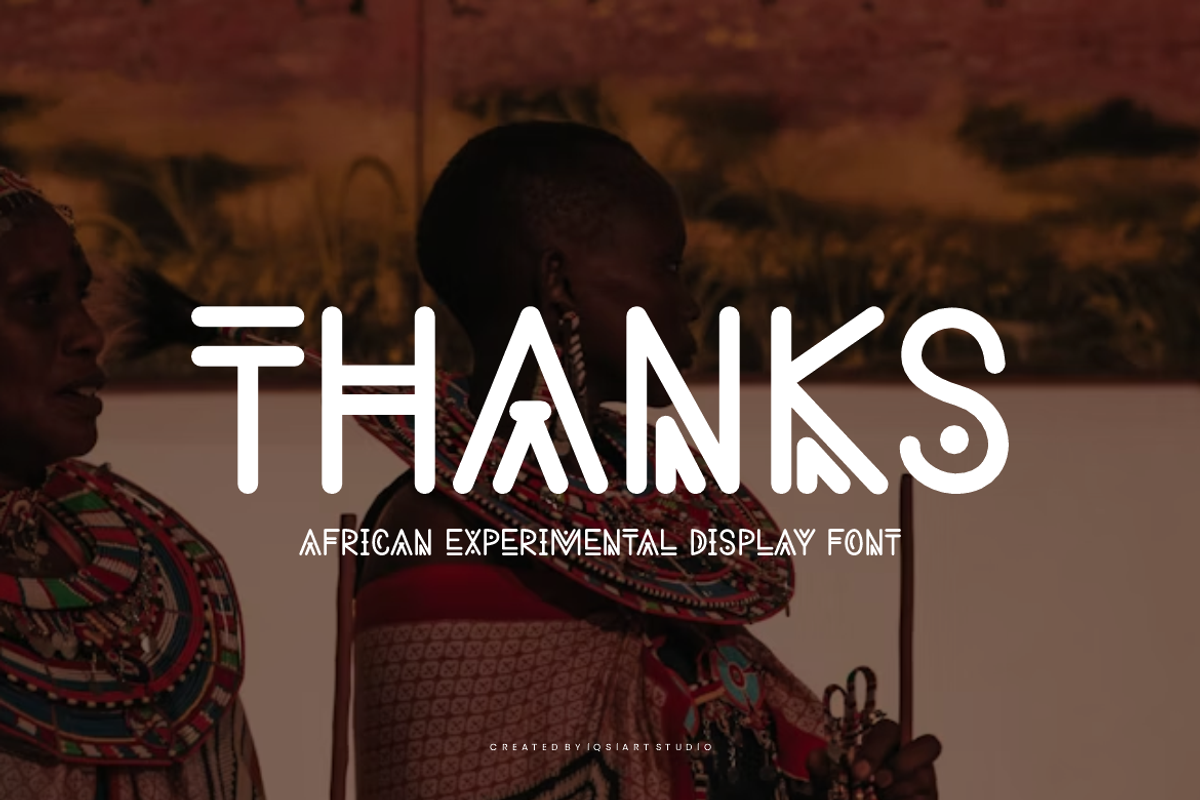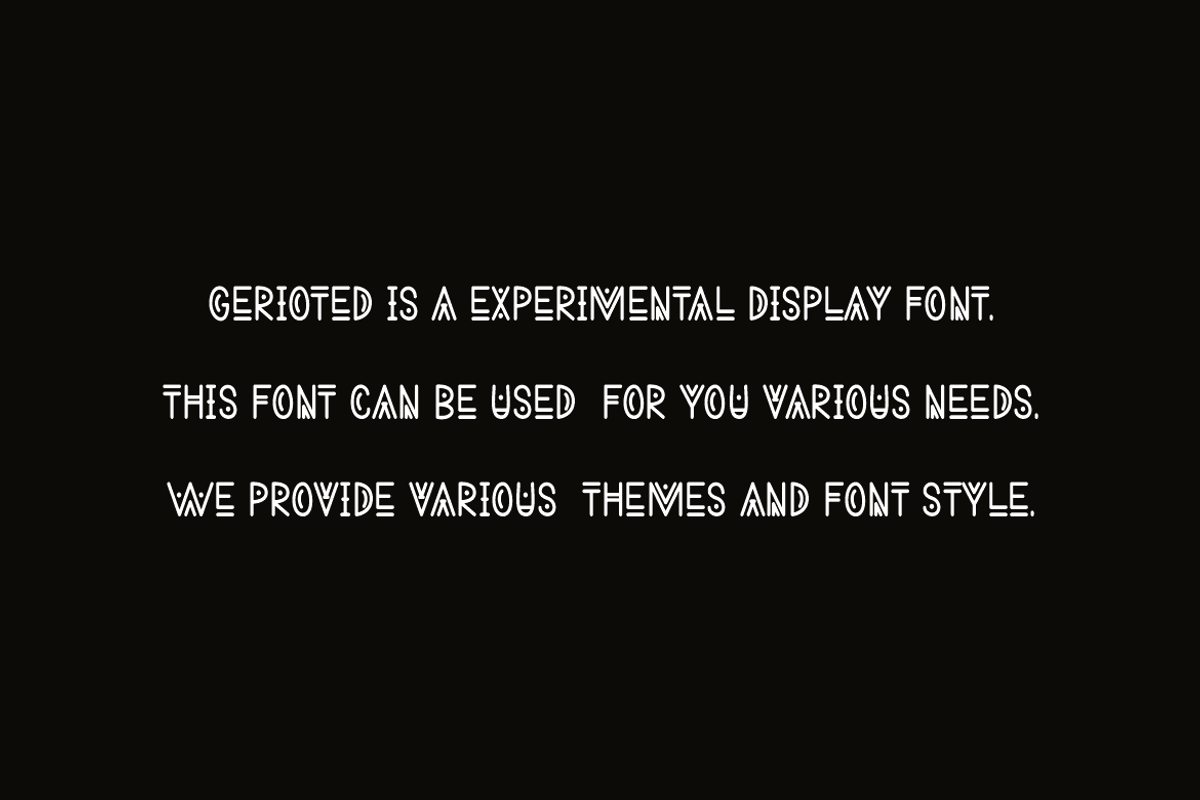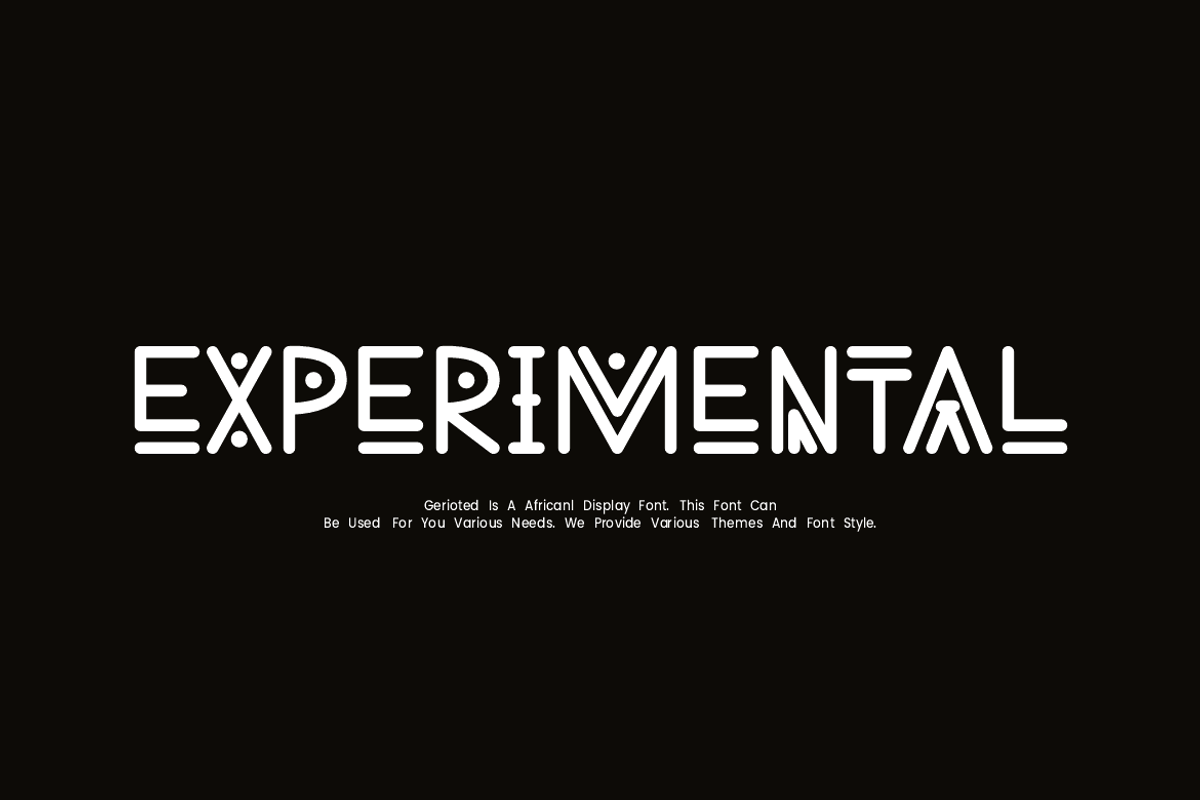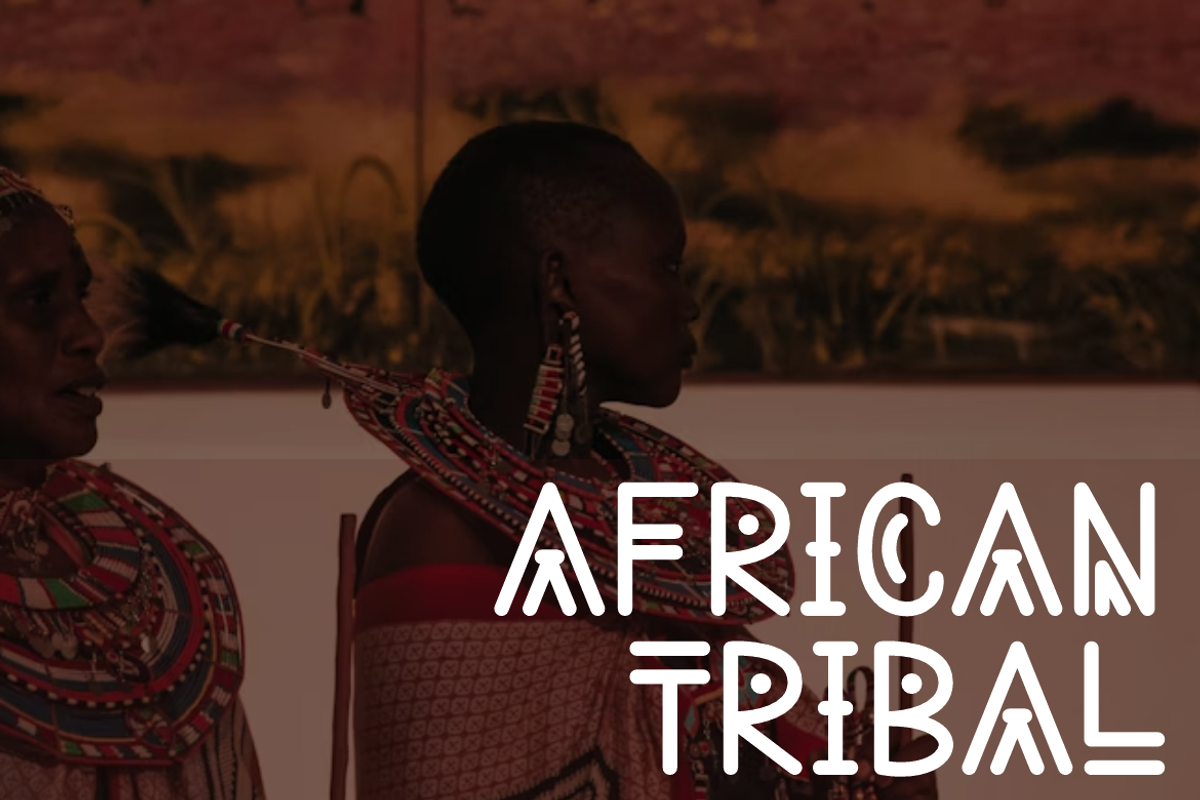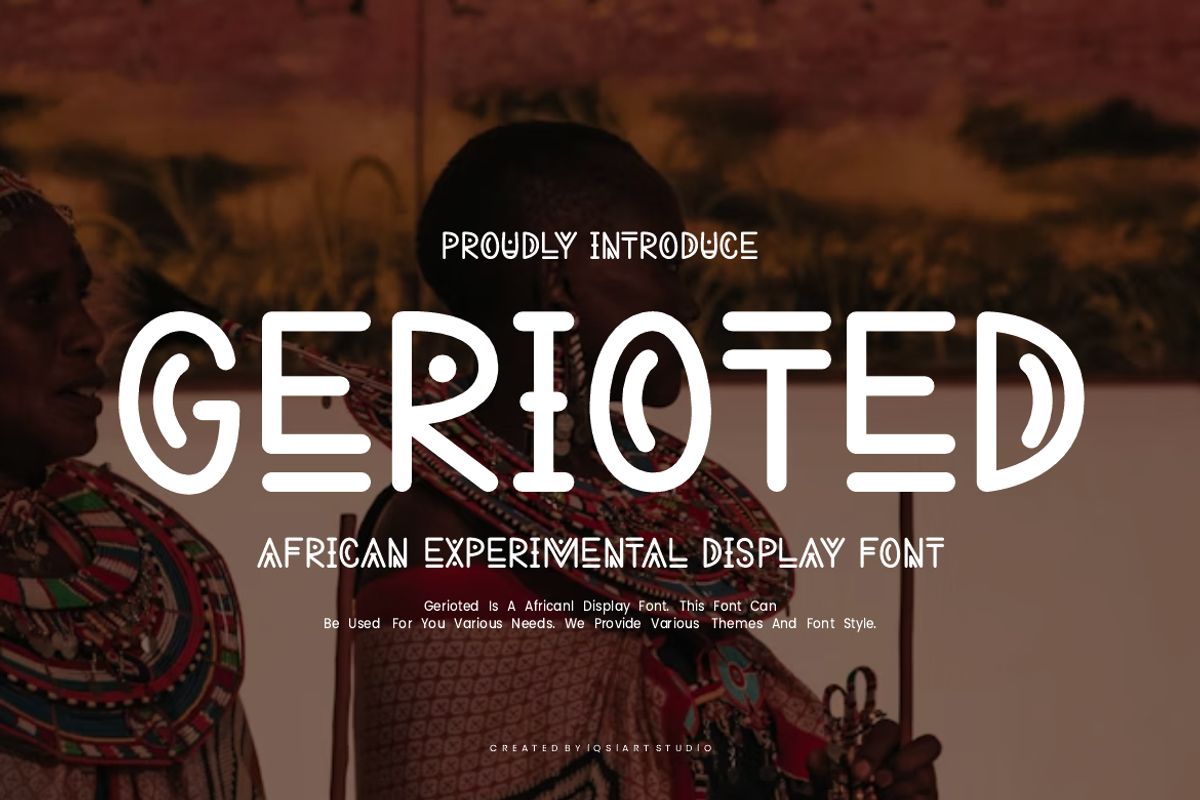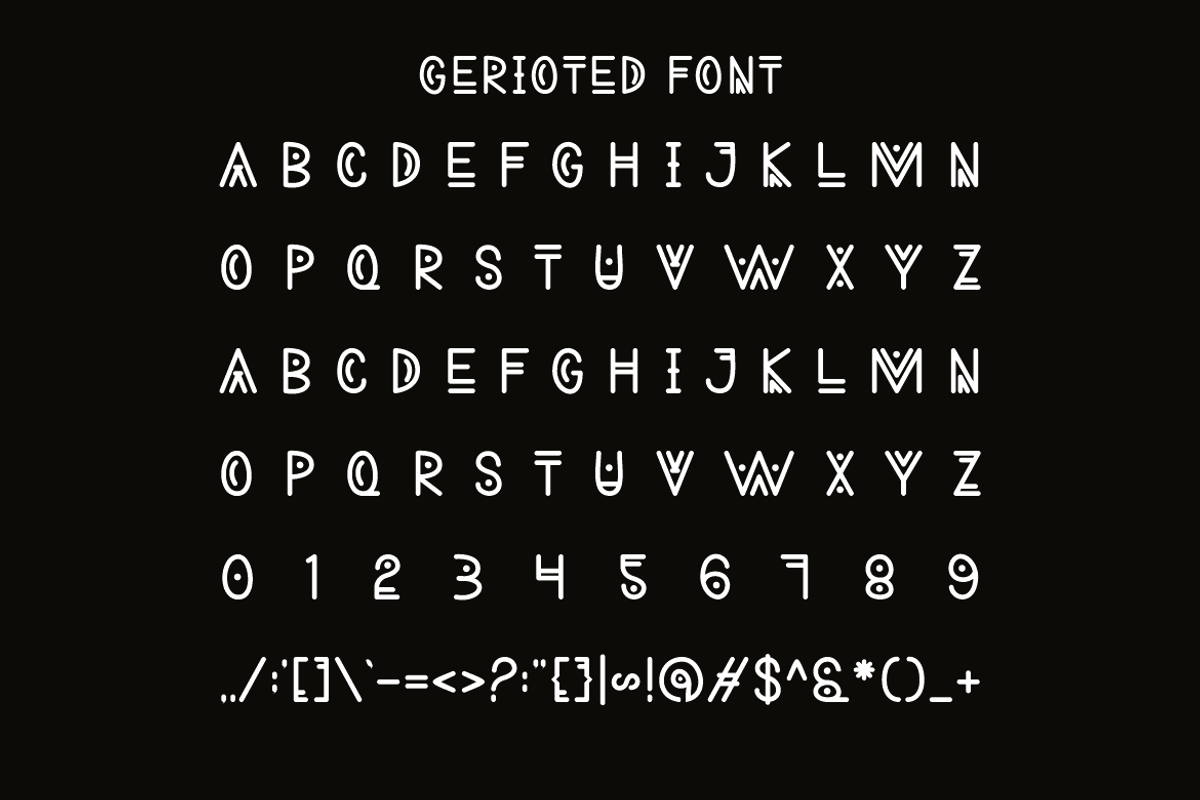
Gerioted - African Experimental Font
Gerioted Font is a best and authentic display font. This font can be used for your various needs. We provide various themes and font styles. visit our profile to get a wide variety of themes and different font styles you need.